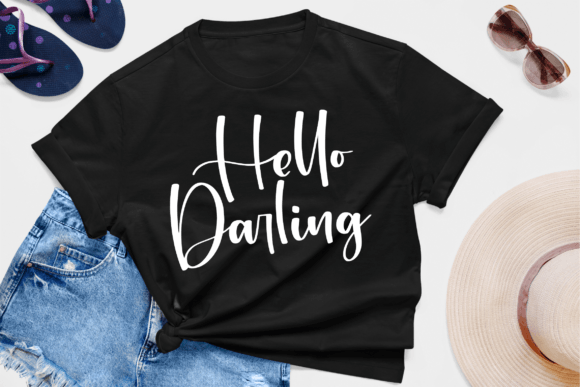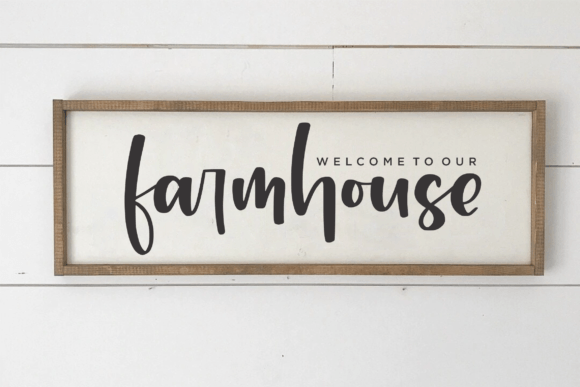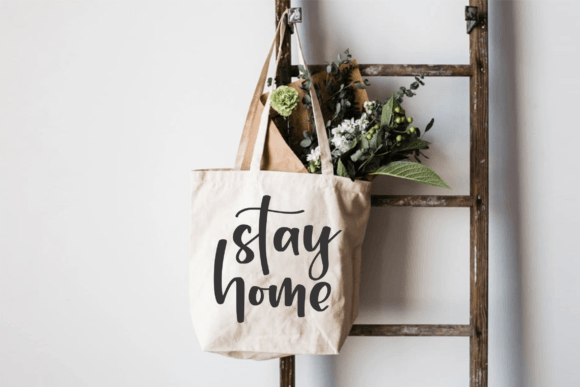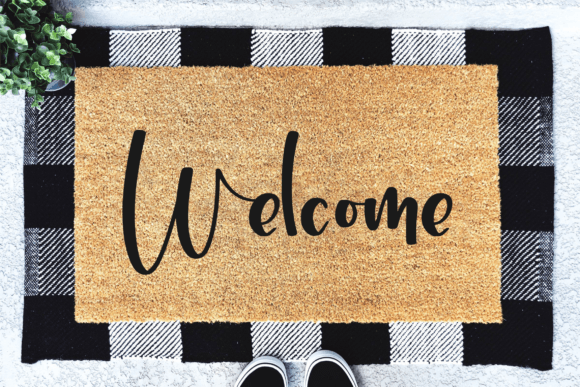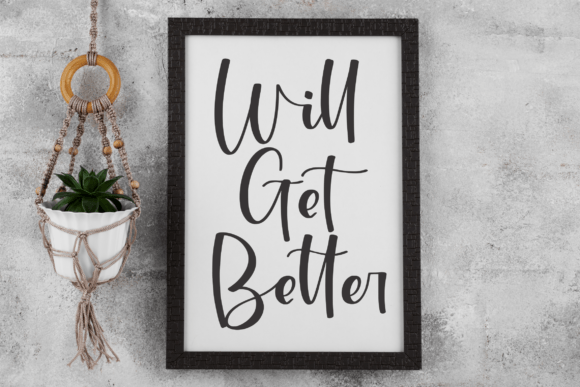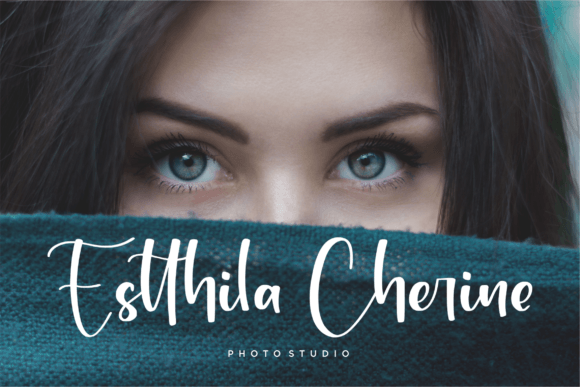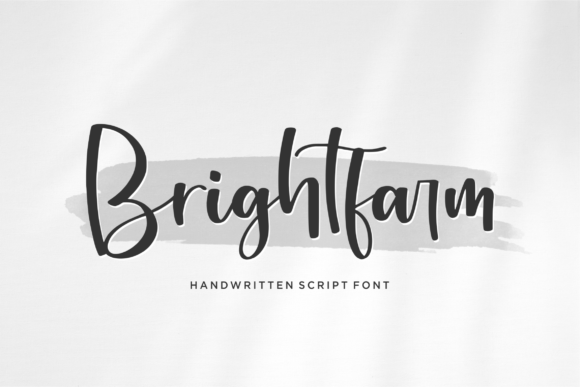
The Brightfarm Font: A Handwritten Script to Elevate Your Designs
I’ll never forget the time I was working on a branding project for a local bakery, and I just couldn’t find the right font to capture their warm and cozy vibe. The client wanted something that felt personal and inviting, but everything I tried seemed too generic or overused. That’s when I stumbled upon the Brightfarm font, and it was like a lightbulb moment! ✨
Brightfarm is a beautiful handwritten script font that’s perfect for adding a touch of personality to your designs. In this article, I’ll share my honest review of the font, provide a practical guide on how to use it, and explore some similar alternatives.
An Honest Review of Brightfarm
• ✨ Unique and elegant handwritten style that’s perfect for branding and packaging
• 🎨 Beautifully crafted to evoke a sense of warmth and personality
• 💻 Excellent for use in digital and print materials
While Brightfarm is an amazing font, there are a few things to keep in mind:
• 🤔 Some letters may require manual kerning for optimal spacing
• ⚠️ Limited availability of extended language support
One of the best things about Brightfarm is its support for OpenType features and glyphs. This means you can access a range of stylistic alternates, swashes, and ligatures to add extra personality to your text.
The Story Behind Brightfarm
Brightfarm was designed with the intention of creating a beautiful, handwritten font that captures the warmth and personality of everyday writing. The designer aimed to create a font that’s both elegant and approachable, perfect for a wide range of design applications.
Q: What is Brightfarm font best used for?
A: Brightfarm is perfect for product packaging, branding projects, magazines, social media, weddings, or just used to express words above the background.
Q: Is Brightfarm a difficult font to read?
A: No, Brightfarm is highly legible, even at small sizes, making it perfect for a wide range of design applications.